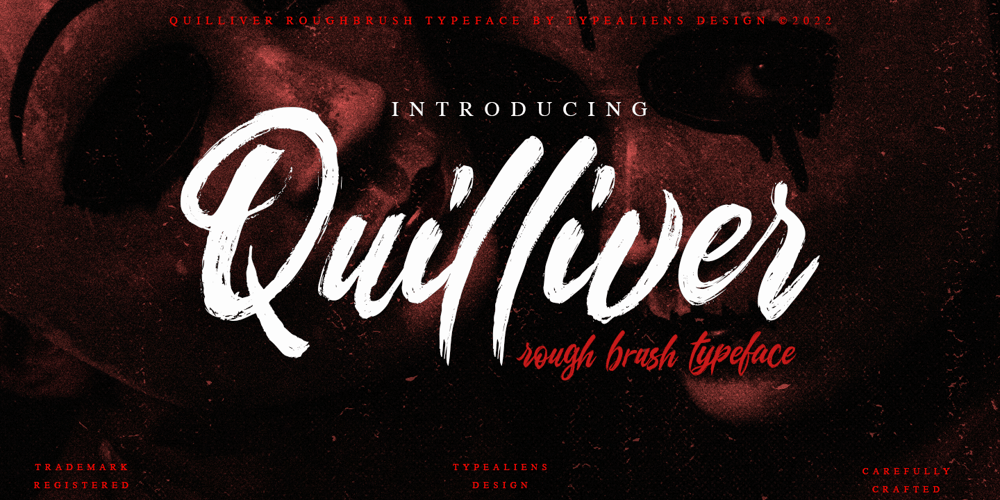
Quilliver Font Family was designed by Ilham Wahyu and published by Ilhamtaro. Quilliver contains 1 styles and family package options. QUILLIVER is a script display font with a texture brush, a font that is basically made from digital calligraphy, so it feels very thick with the calligraphy style using a brush on this font. Fonts that are suitable for modern designs such as youth fashion, skateboard brands, quotes, etc. This script font with a texture brush makes this font flexible because it doesn’t look feminine, making it easy to apply to non-feminine designs.To enable the OpenType Stylistic alternates, you need a program that supports OpenType features such as Adobe Illustrator CS, Adobe Indesign & CorelDraw X6-X7. Guides to access all alternates glyphs : http://adobe.ly/1m1fn4YCheers!